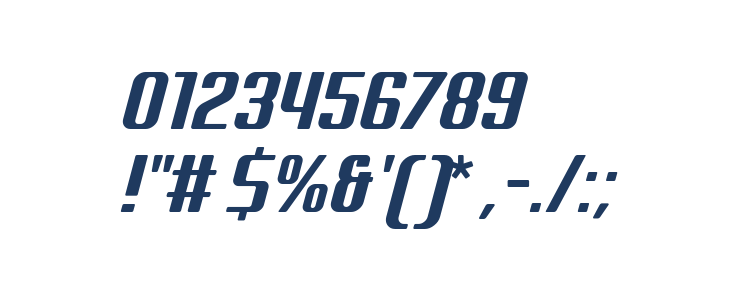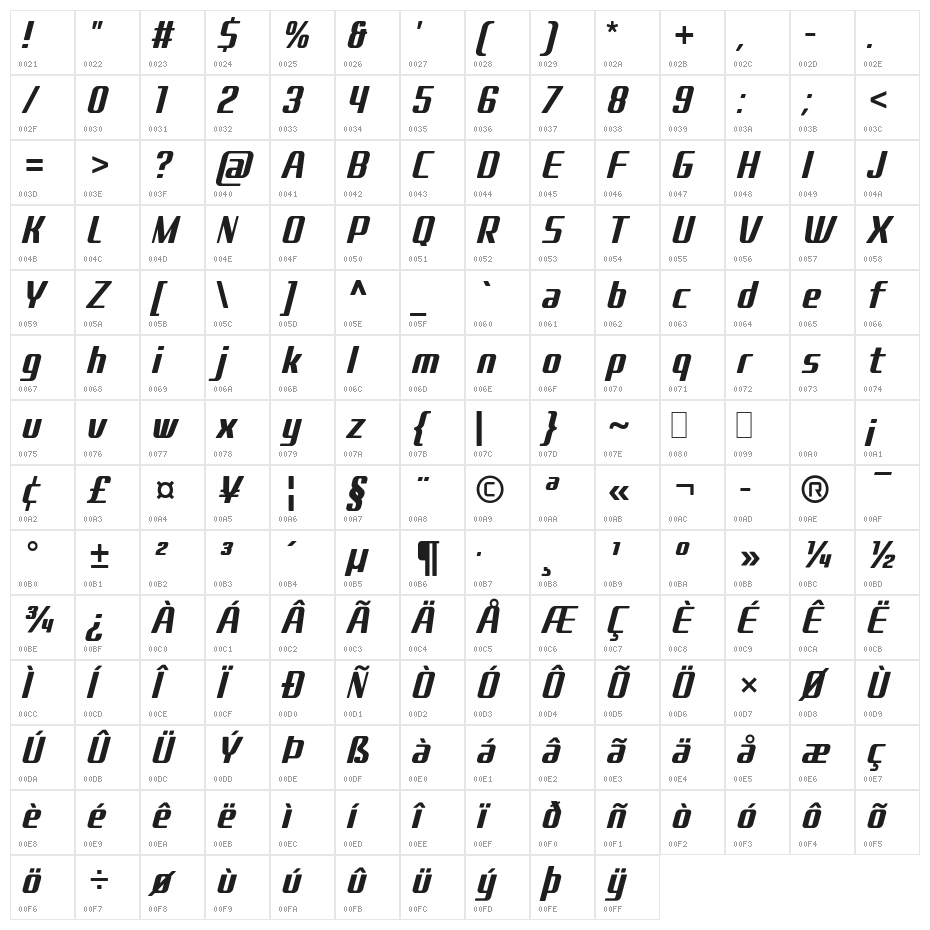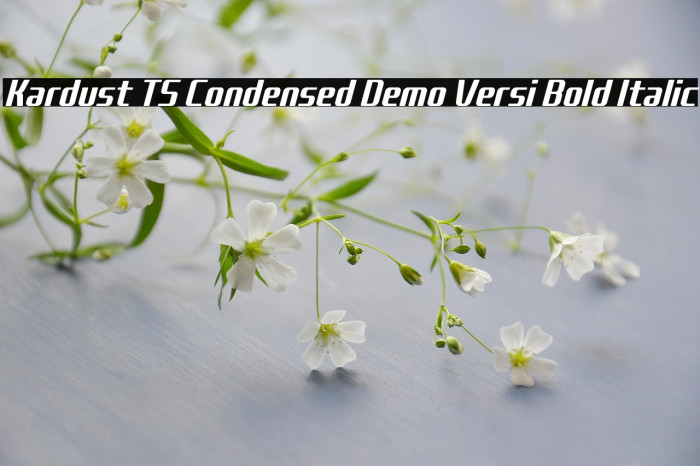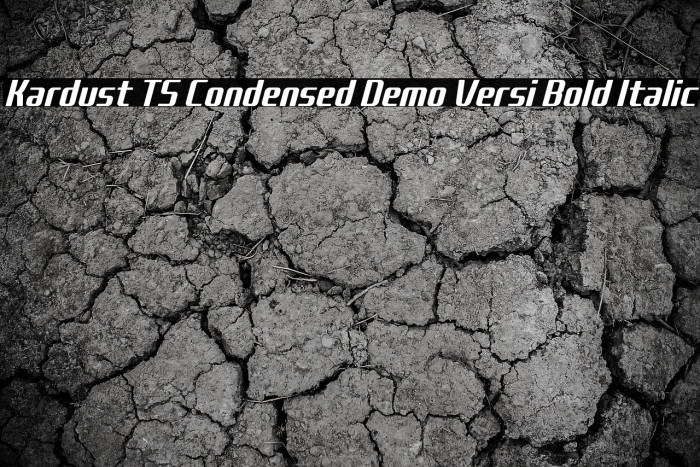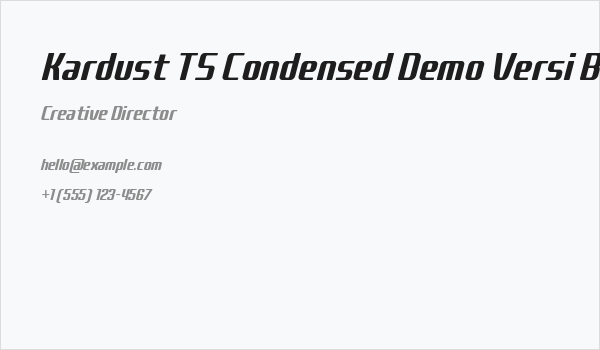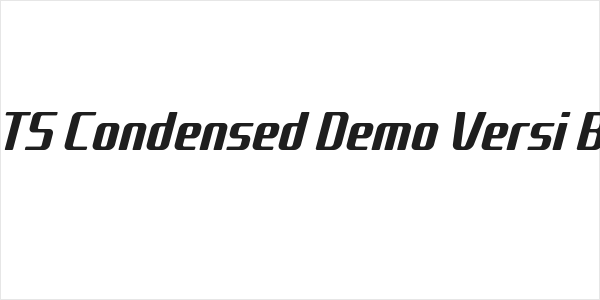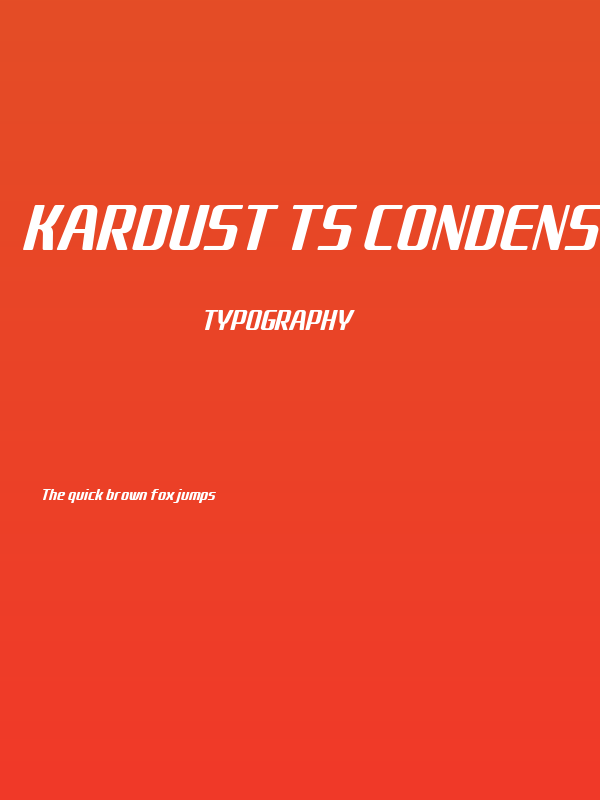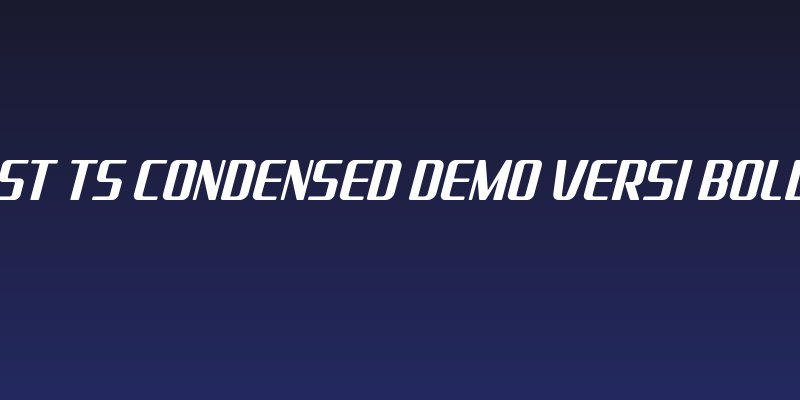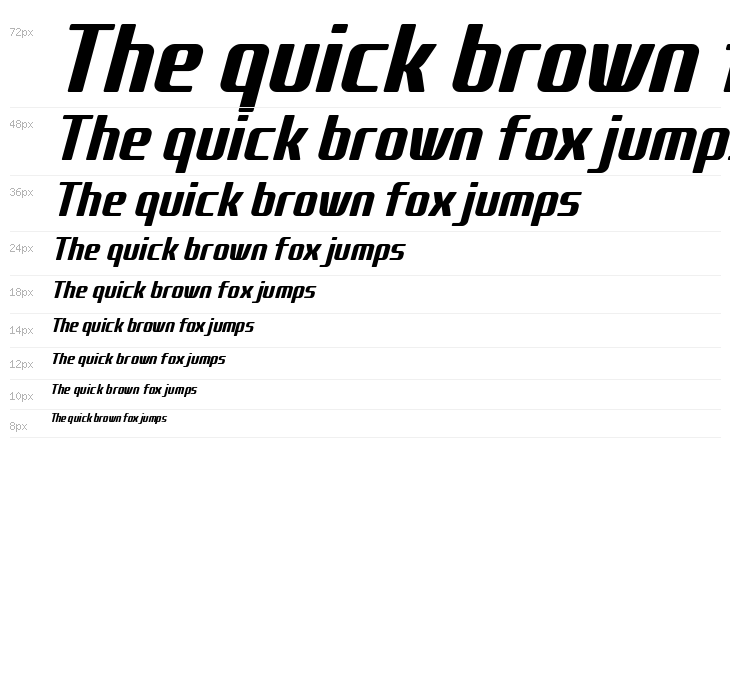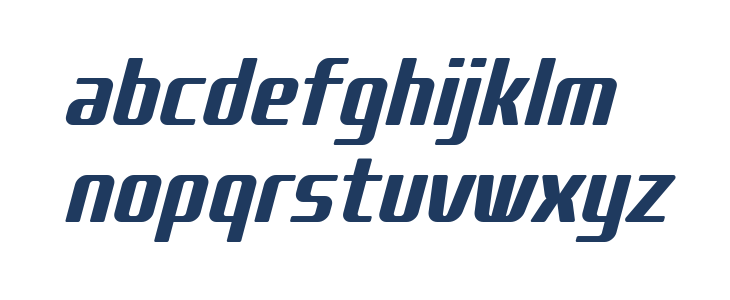
Kardust TS Condensed Demo Versi Bold Italic Font
Kardust TS Condensed Demo Versi Bold Italic Description
This font features a bold and italicized style with a condensed width, giving it a modern and dynamic appearance. The characters are slightly slanted, enhancing the italic effect, while maintaining a strong and assertive presence. The strokes are thick and consistent, providing a high contrast that makes the font stand out. The uppercase and lowercase letters are well-proportioned, and the numerals are clear and legible. Special characters are included, offering versatility for various design needs. The overall design is sleek and contemporary, suitable for projects that require a bold statement.
| Proposed Projects | Ideal for headlines, branding, posters, and advertising materials where a strong impact is desired. |